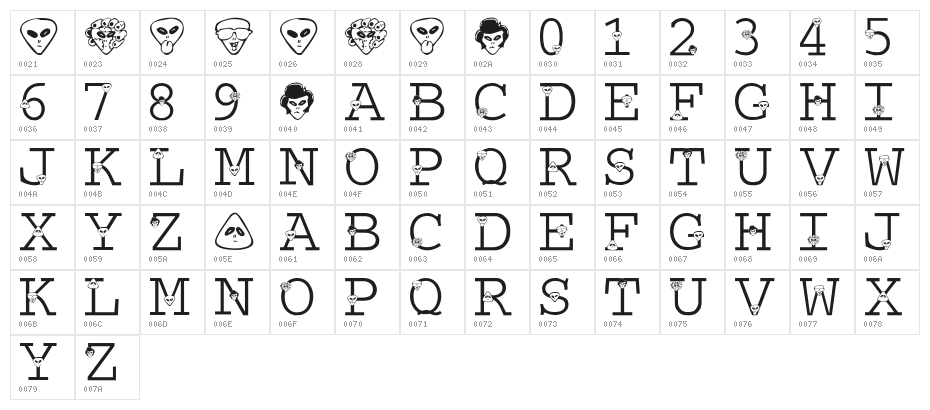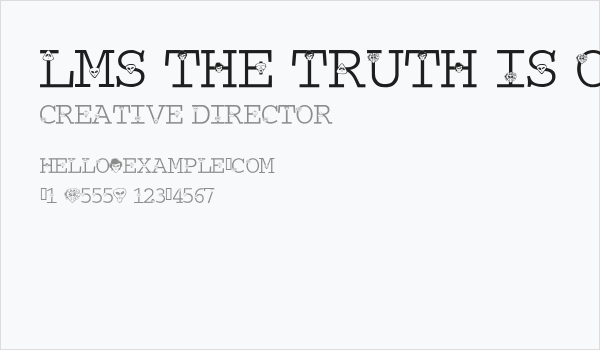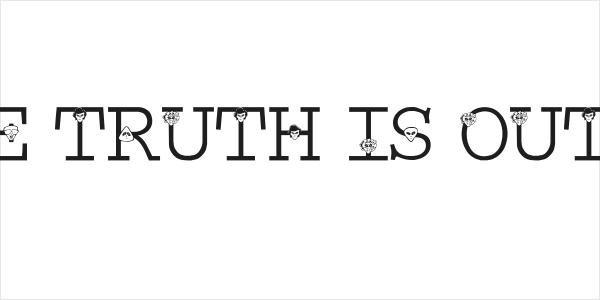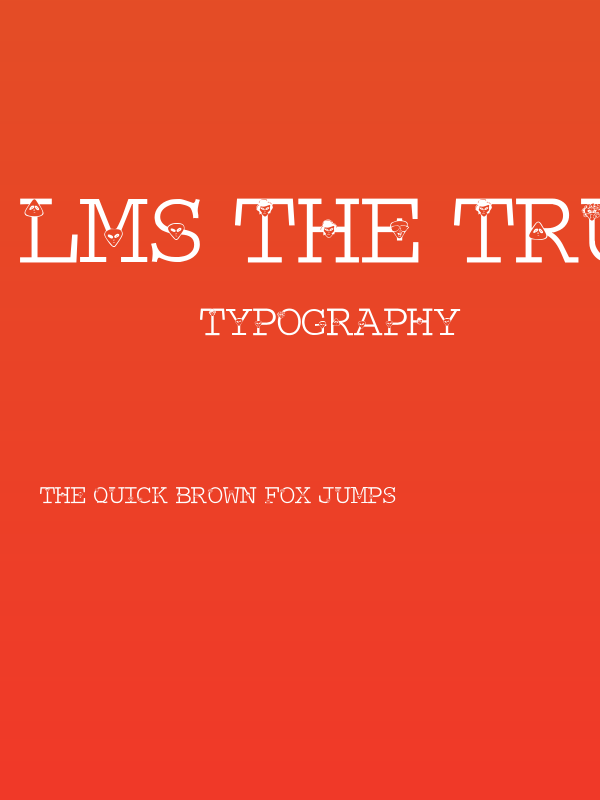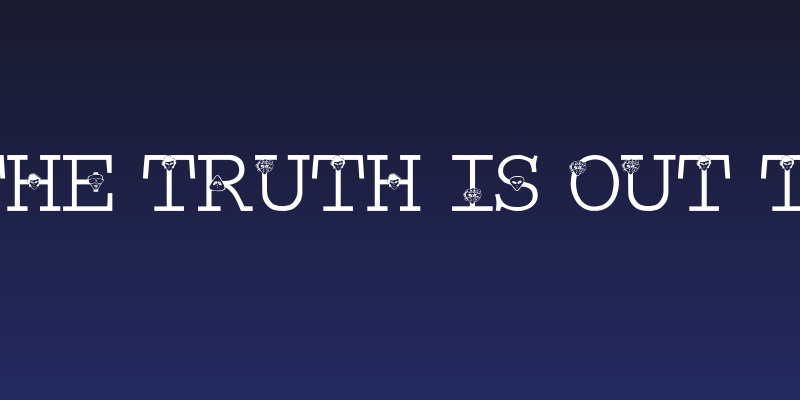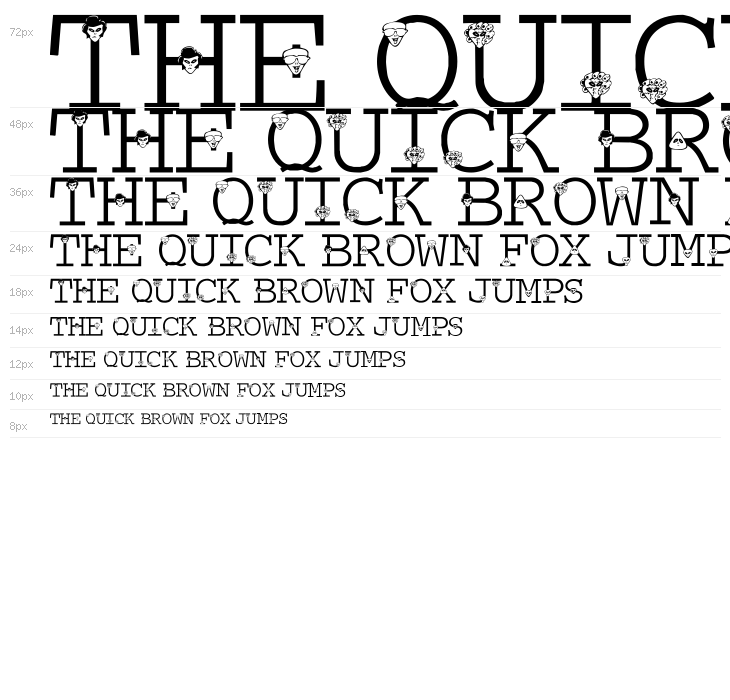
LMS The Truth Is Out There Font
LMS The Truth Is Out There Description
This font features a playful and quirky design, incorporating alien-themed illustrations within the characters. Each letter and number is adorned with small alien faces or UFO elements, adding a unique and whimsical touch. The overall structure is reminiscent of a serif style, with clean lines and a balanced form, yet the decorative elements make it stand out as a display font. The characters are evenly spaced, ensuring readability while maintaining the fun, extraterrestrial theme.
| Proposed Projects | Ideal for sci-fi themed posters, children's books, novelty items, and creative branding projects. |